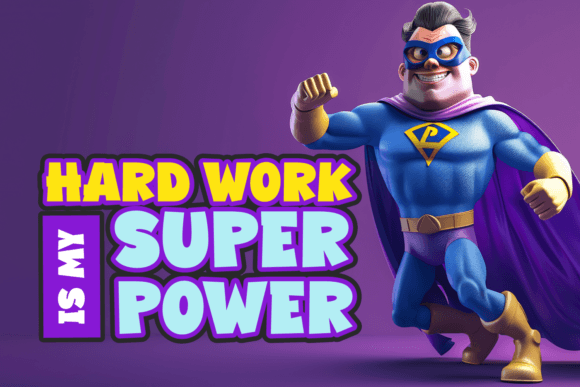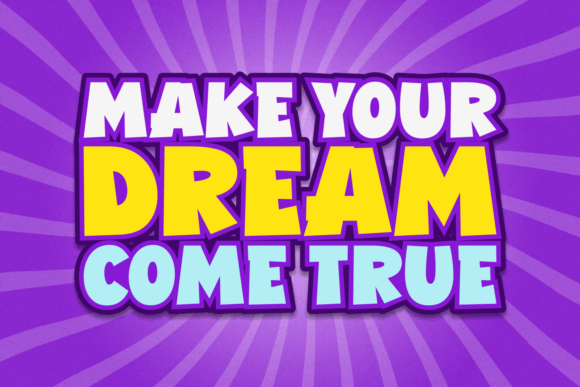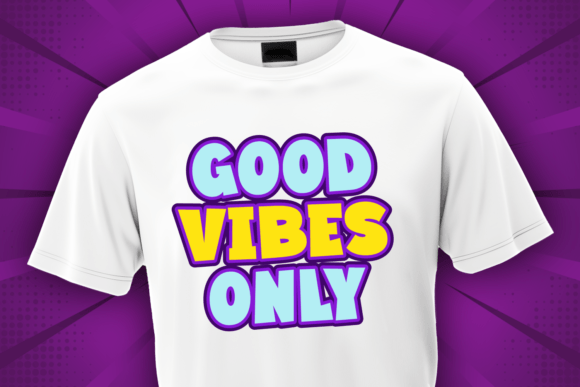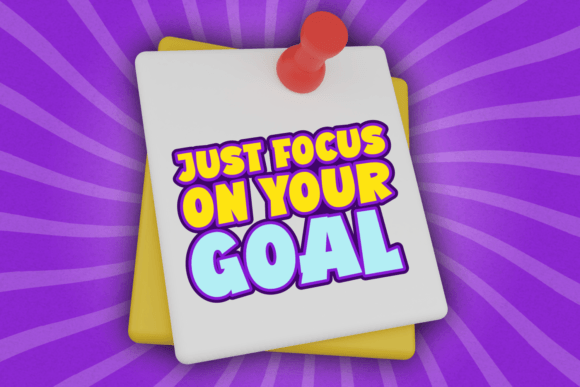
Introducing Earth Hero Font: The Ultimate Superhero-Inspired Typeface
Are you looking for a font that embodies strength, energy, and excitement? Look no further than Earth Hero Font, a powerful comic font designed to make a bold statement. Whether you’re working on a retro-themed project or a modern design, Earth Hero is the perfect choice for any high-impact display work.
What is Earth Hero Font?
Earth Hero Font is a superhero-inspired typeface that exudes confidence and dynamism. Its bold design is reminiscent of classic comic books, making it an excellent choice for projects that require a strong visual impact. The font’s powerful lines and energetic feel make it perfect for headlines, titles, and any other display text that needs to grab attention.
Key Features of Earth Hero Font
- Bold and Powerful Design: Earth Hero Font features a robust design that’s perfect for making a statement. Its bold lines and strong letterforms ensure that your text stands out from the crowd.
- Superhero-Inspired: The font’s superhero-inspired design makes it ideal for projects that require a sense of excitement and energy.
- Retro and Modern Themes: Earth Hero Font is versatile enough to work well with both retro and modern themes, making it a great choice for a wide range of design projects.
- High-Impact Display Work: The font’s powerful design makes it perfect for high-impact display work, including headlines, titles, and promotional materials.
Who Can Benefit from Earth Hero Font?
Earth Hero Font is an excellent choice for designers, crafters, and artists who work on projects that require a bold and attention-grabbing font. This includes:
- Graphic Designers: Graphic designers can use Earth Hero Font to create stunning visual effects, posters, and promotional materials.
- Comic Book Artists: Comic book artists can use Earth Hero Font to create authentic-looking comic book text, adding a touch of nostalgia to their work.
- Crafters: Crafters can use Earth Hero Font to create eye-catching titles and headings for their handmade projects, such as signs, posters, and cards.
- Advertising Agencies: Advertising agencies can use Earth Hero Font to create bold and attention-grabbing headlines for their clients’ campaigns.
- Use it as a Headline Font: Earth Hero Font is perfect for headlines and titles. Use it to create bold and attention-grabbing text that sets the tone for your project.
- Experiment with Colors: Earth Hero Font looks great in bold colors. Experiment with different colors to find the one that works best for your project.
- Pair it with Other Fonts: Earth Hero Font can be paired with other fonts to create a unique and visually appealing design.
Earth Hero Font is a powerful comic font that’s perfect for projects that need a bold and superhero-inspired design. Its versatility, energy, and excitement make it an excellent choice for designers, crafters, and artists who want to create high-impact display work. With its easy-to-use design and flexibility, Earth Hero Font is sure to become a staple in your font collection.